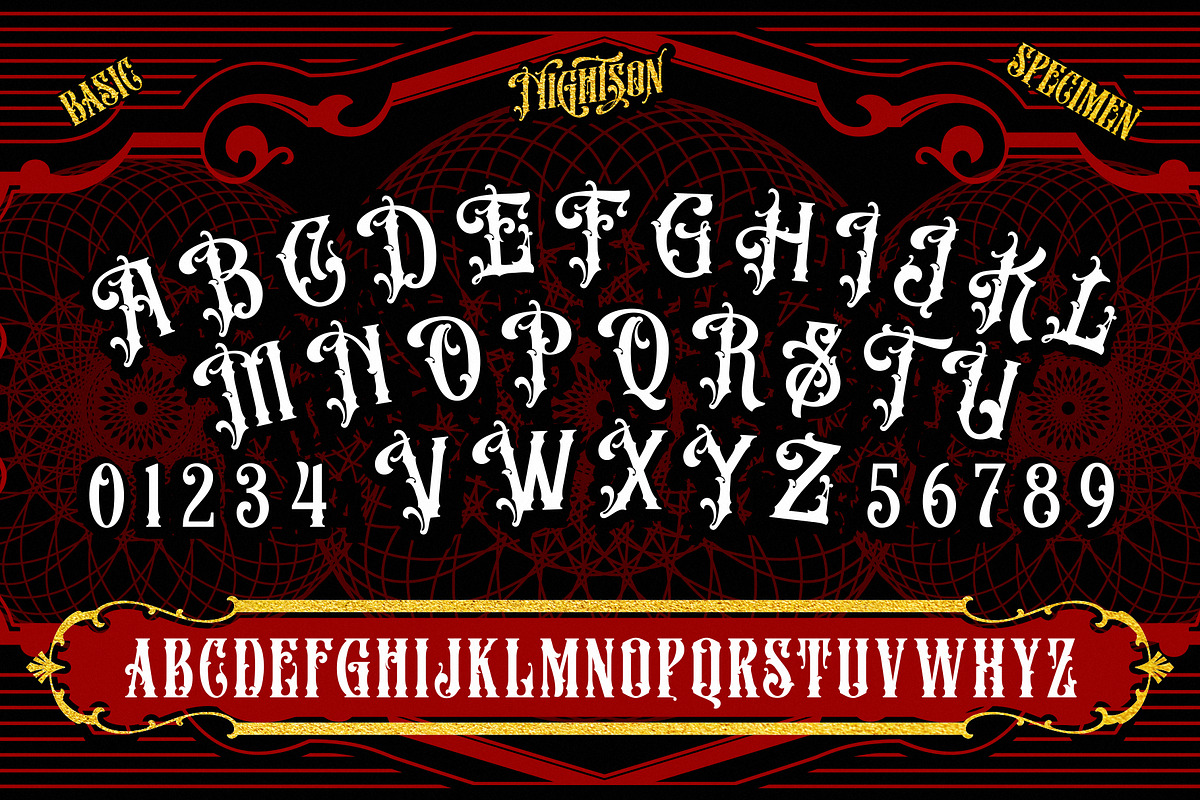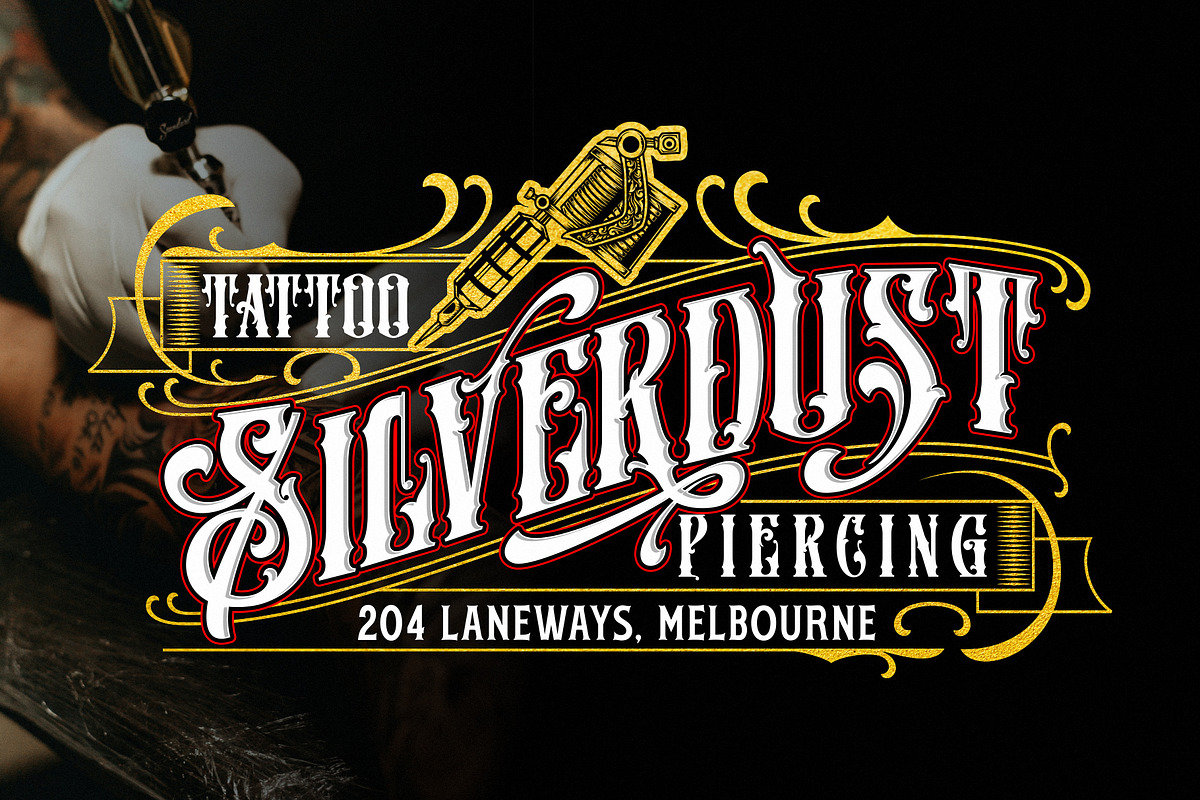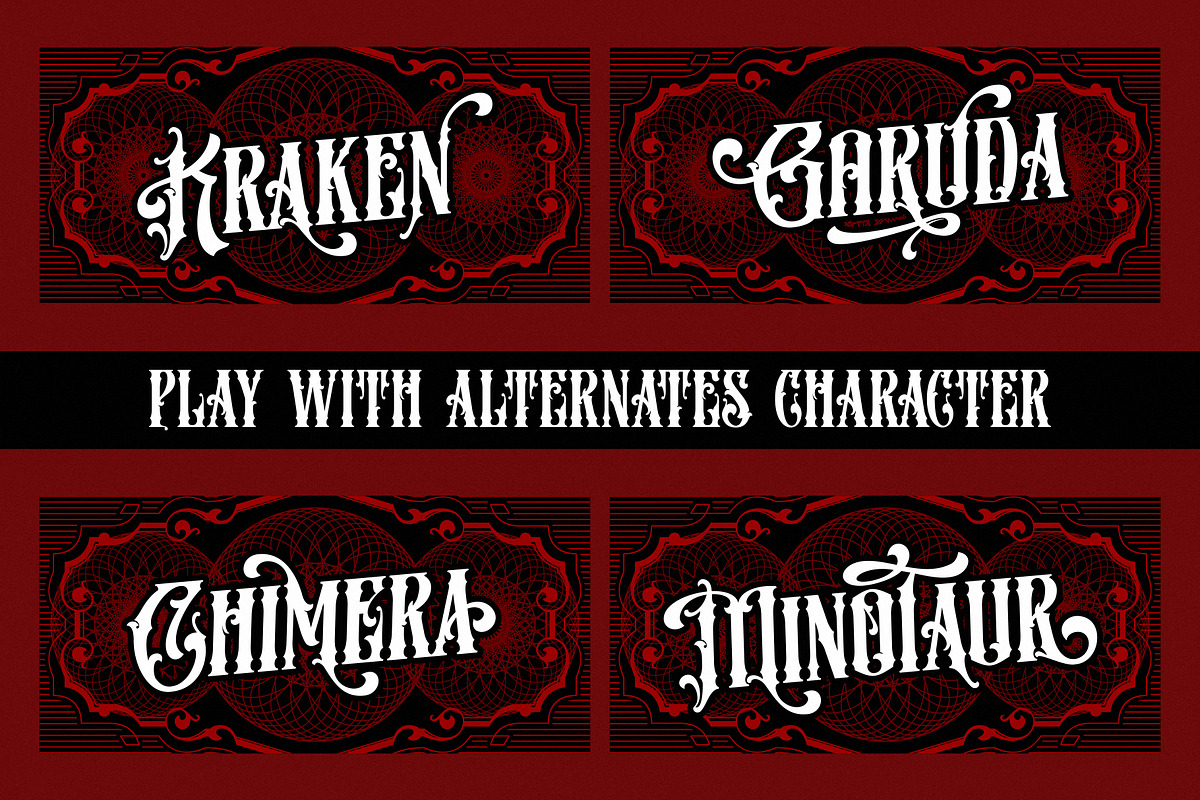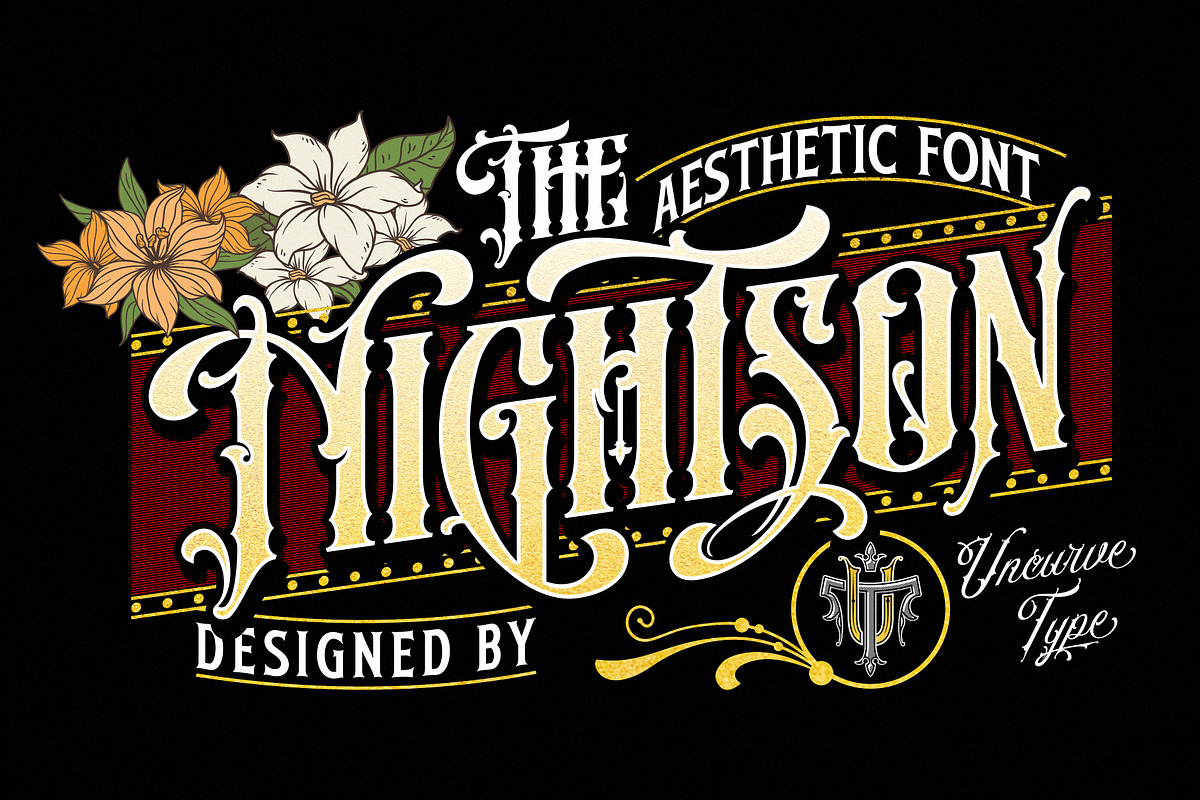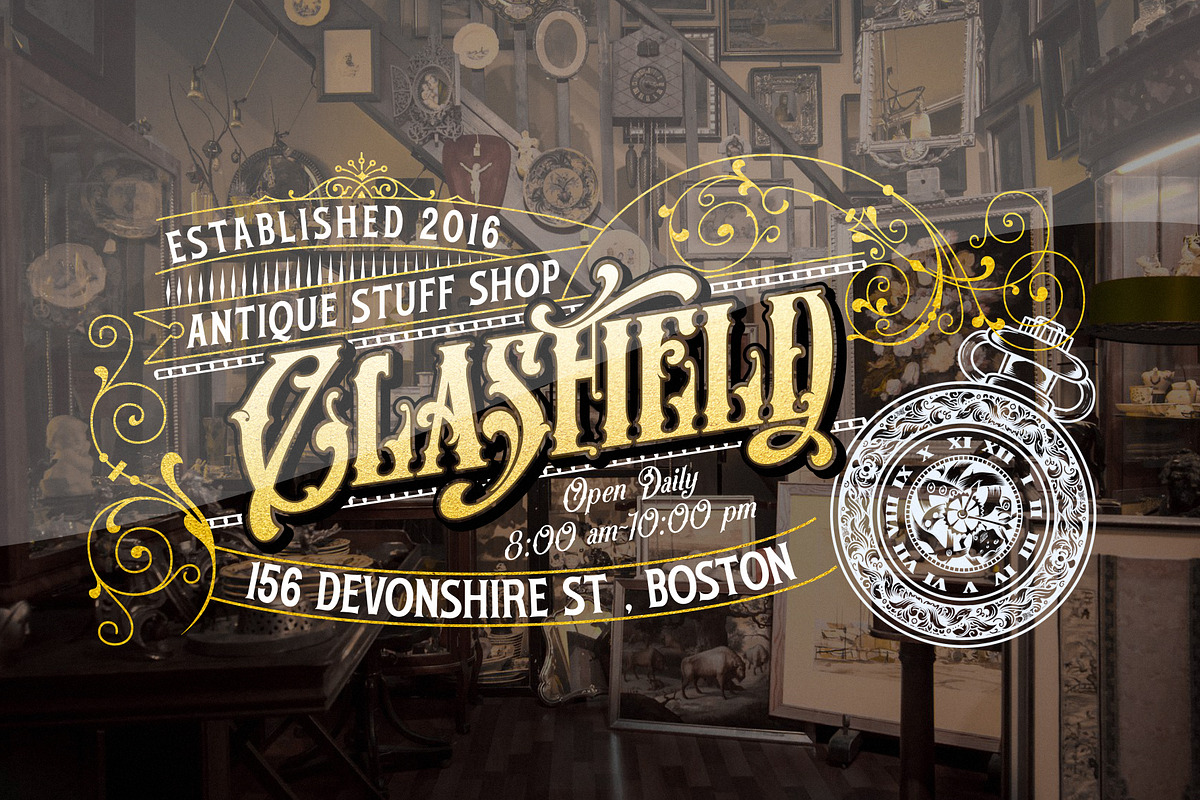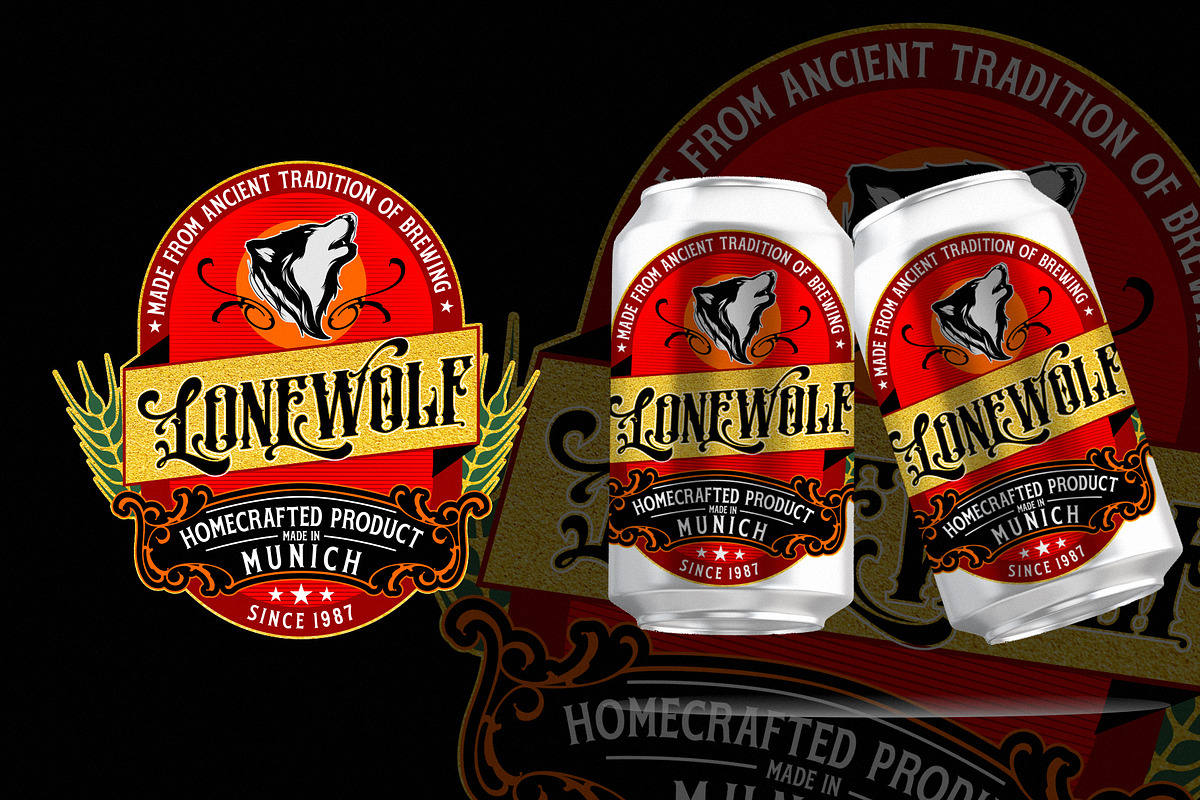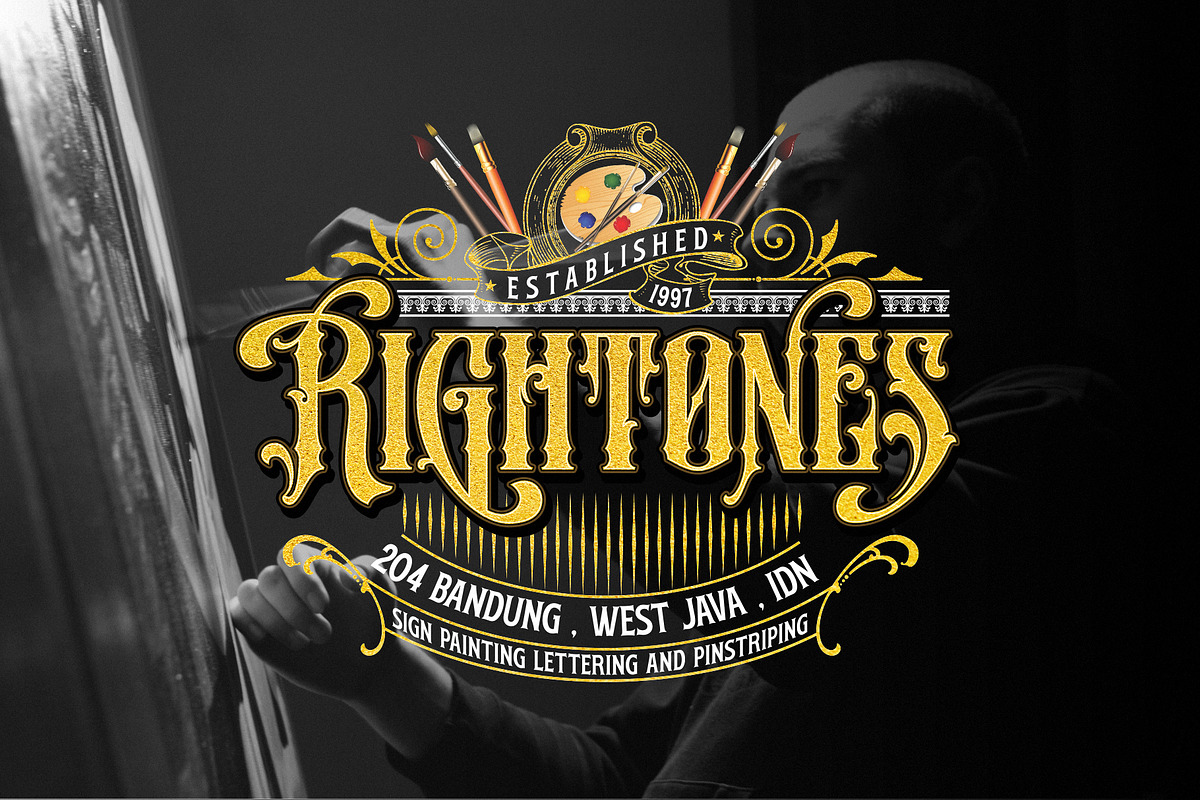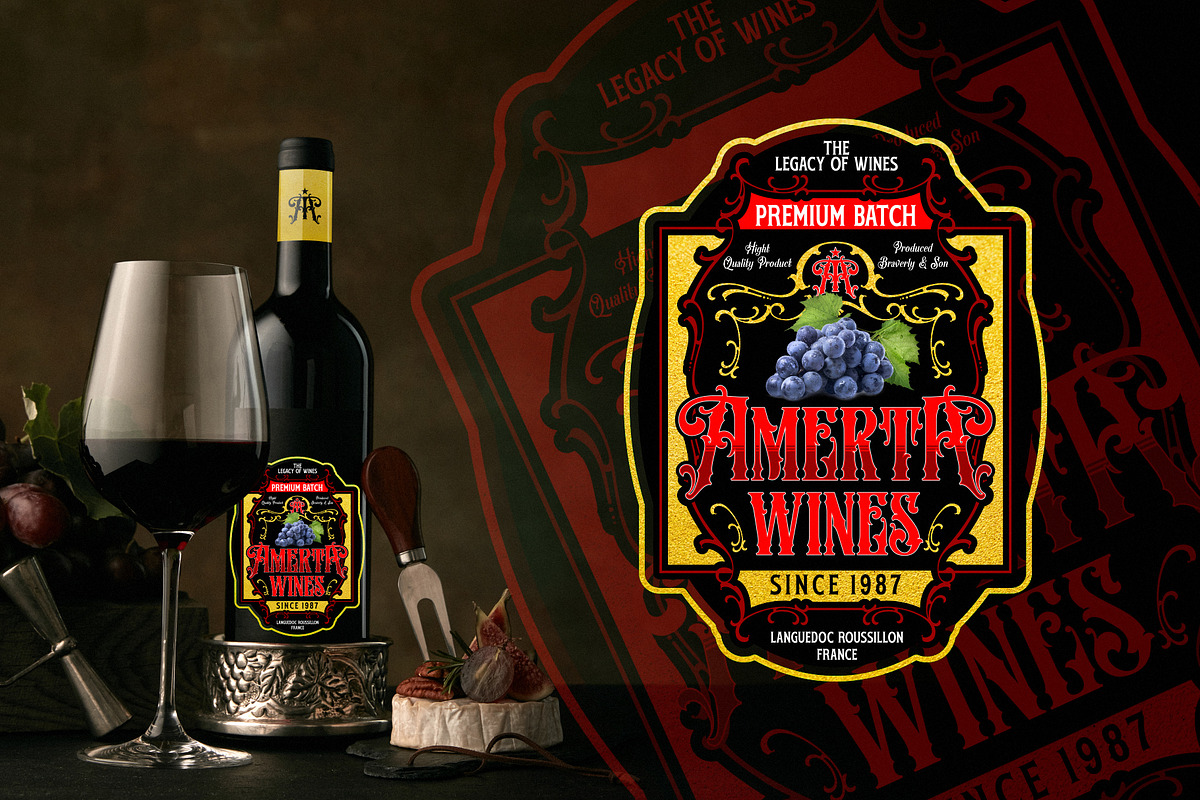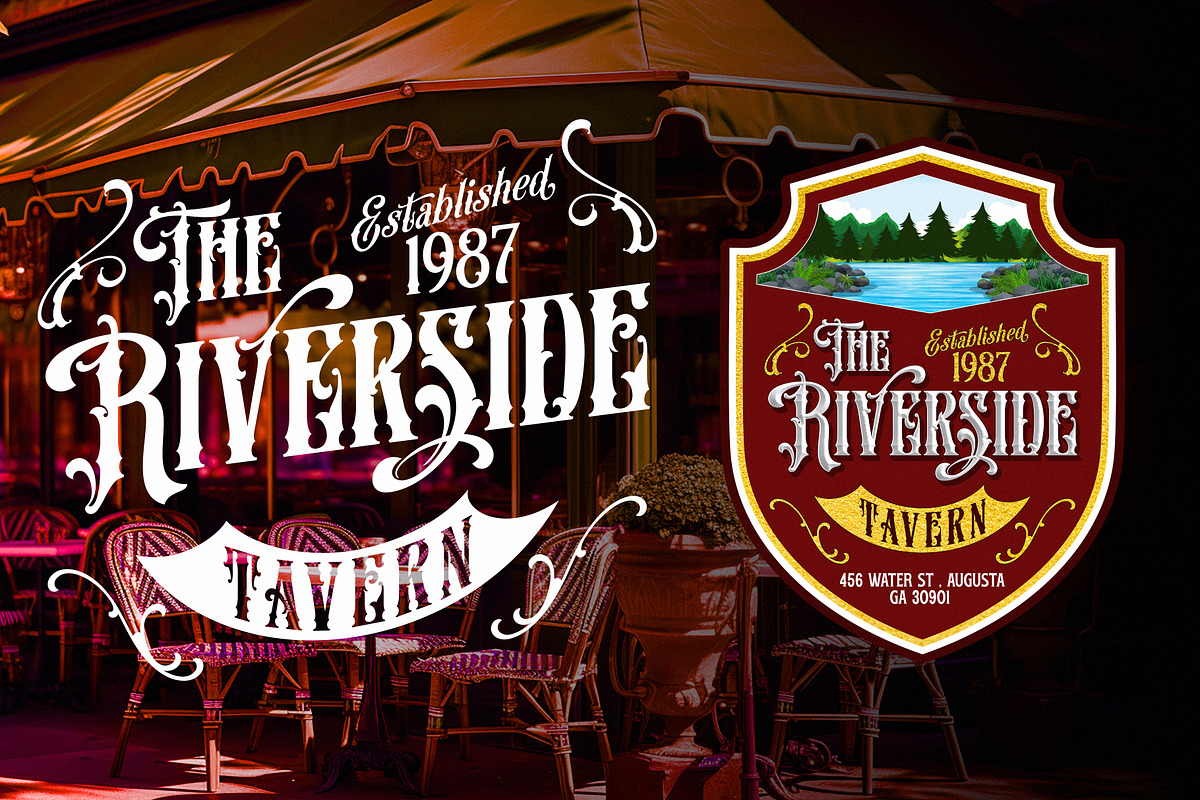
Nightson
Nightson – Vintage Victorian Serif Font
Step into the elegance of the past with Nightson, a beautifully crafted vintage Victorian serif font. Inspired by classic signage, gold leaf lettering, sign painting, and old label designs, Nightson brings a touch of nostalgia and sophistication to any project.
Designed with intricate details and a timeless aesthetic, this font captures the essence of historical typography while remaining highly versatile for modern use.
With tons of alternate characters, Nightson allows endless creative possibilities, making every design unique and visually striking.
Perfect for authentic logos, Victorian lettering, posters, branding, magazines, album covers, book titles, apparel, packaging, and more, this font pairs beautifully with script, serif, or sans-serif fonts to create the perfect vintage composition. Whether you're working on a classic branding project, an old-fashioned sign, or a retro-inspired design, Nightson will bring elegance, charm, and a bold statement to your work.